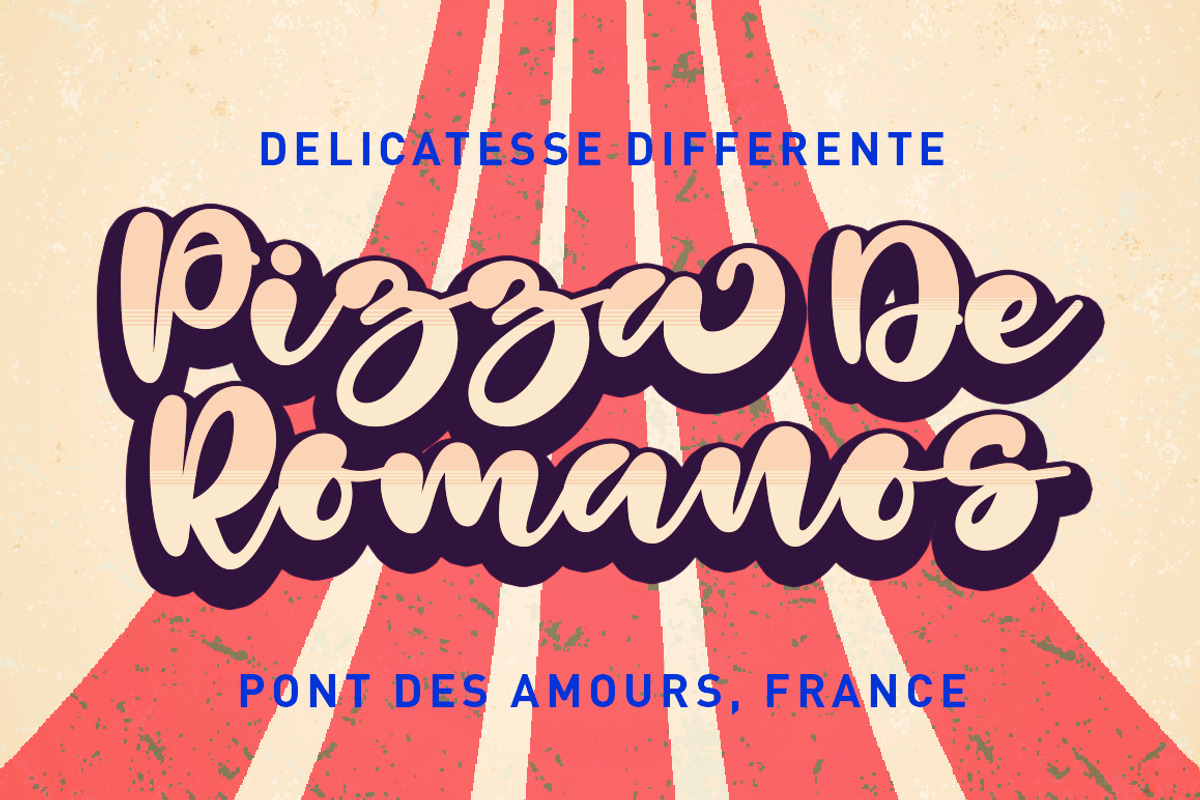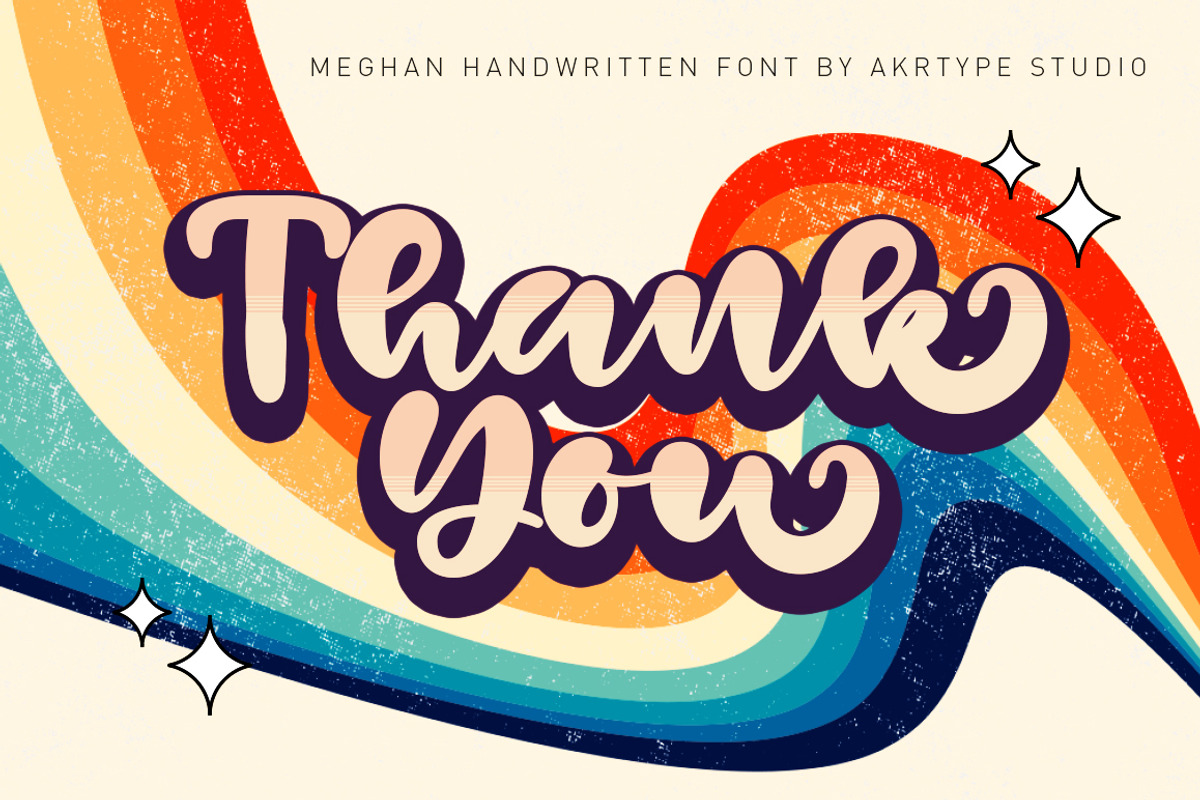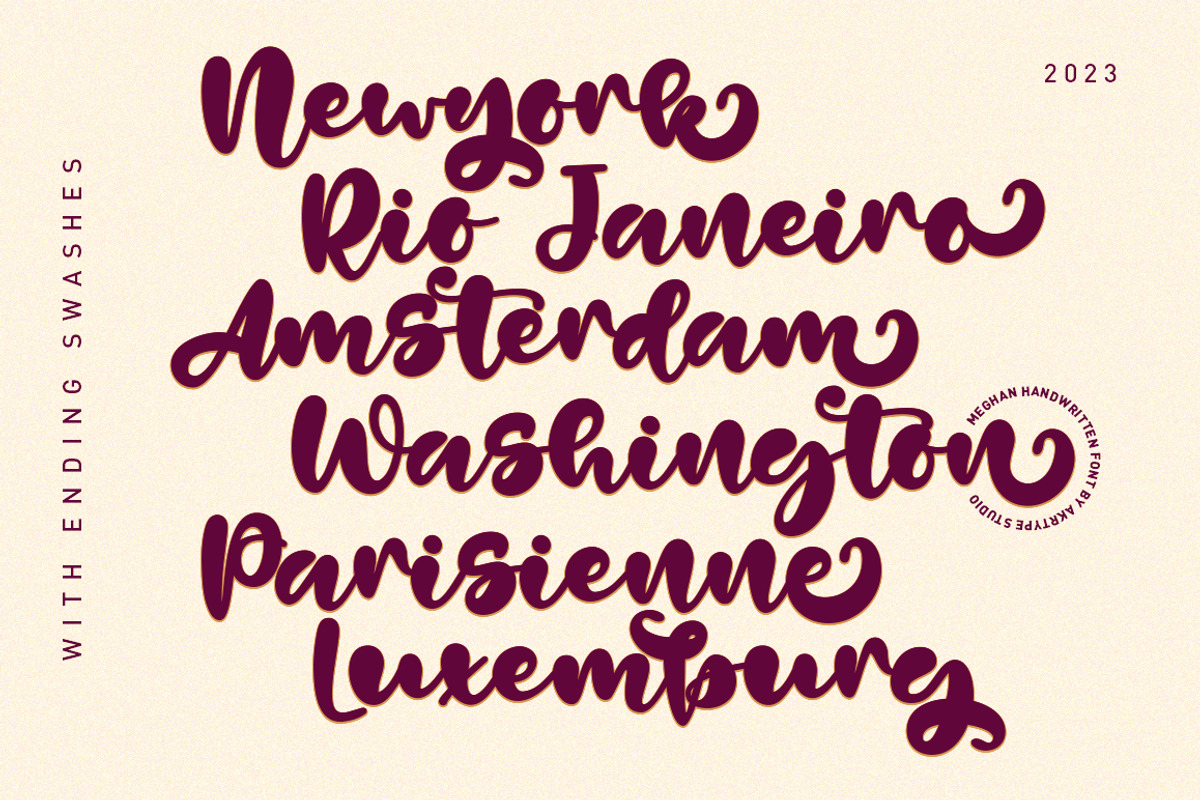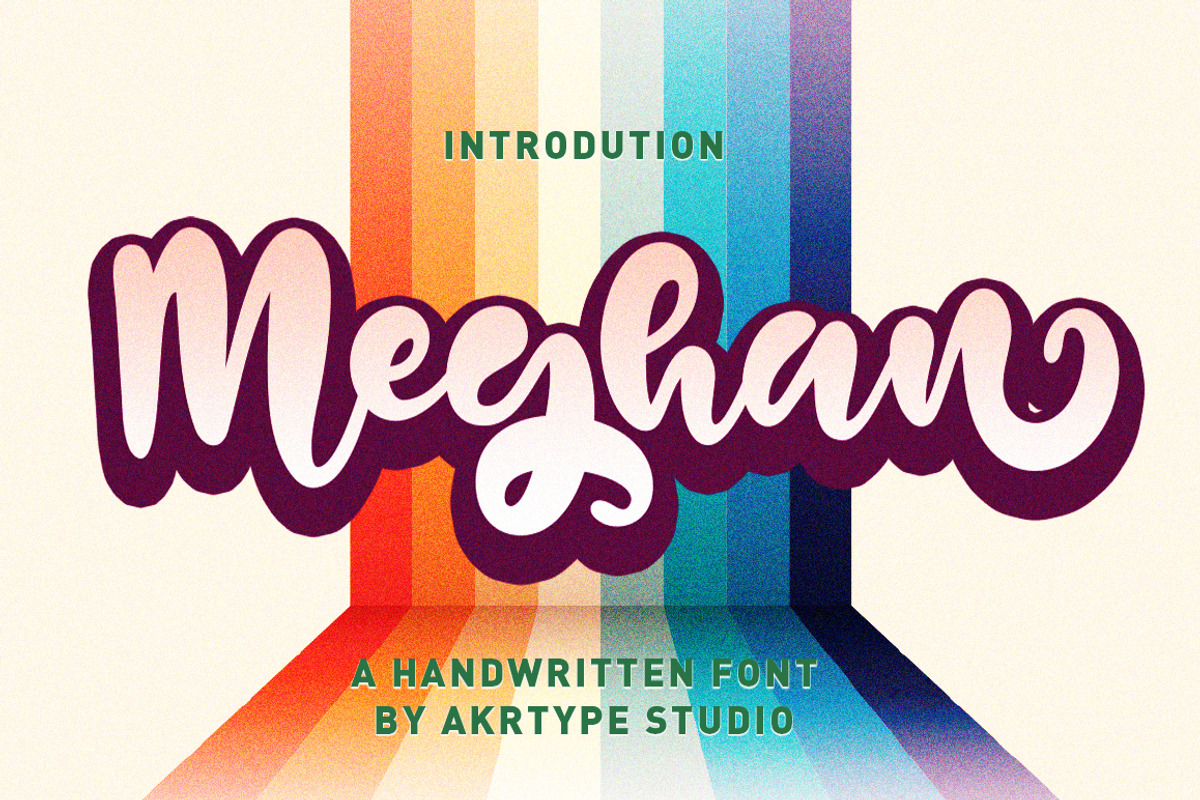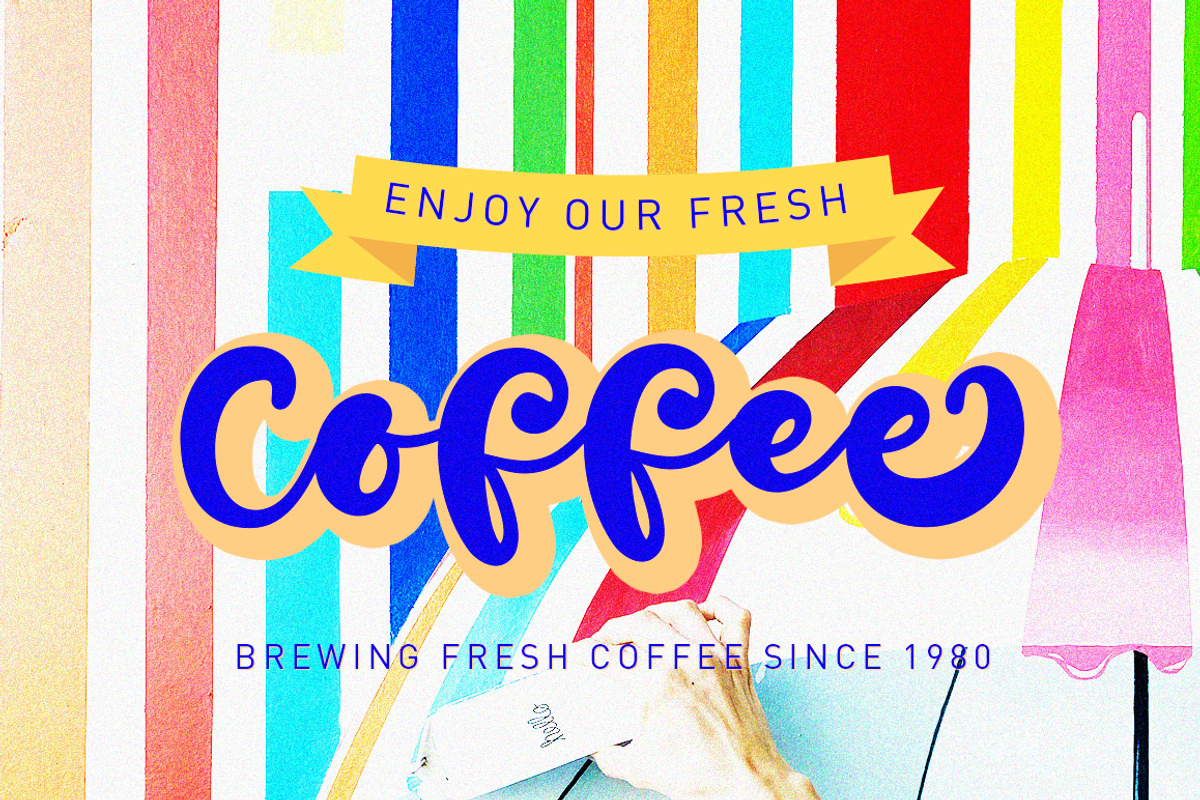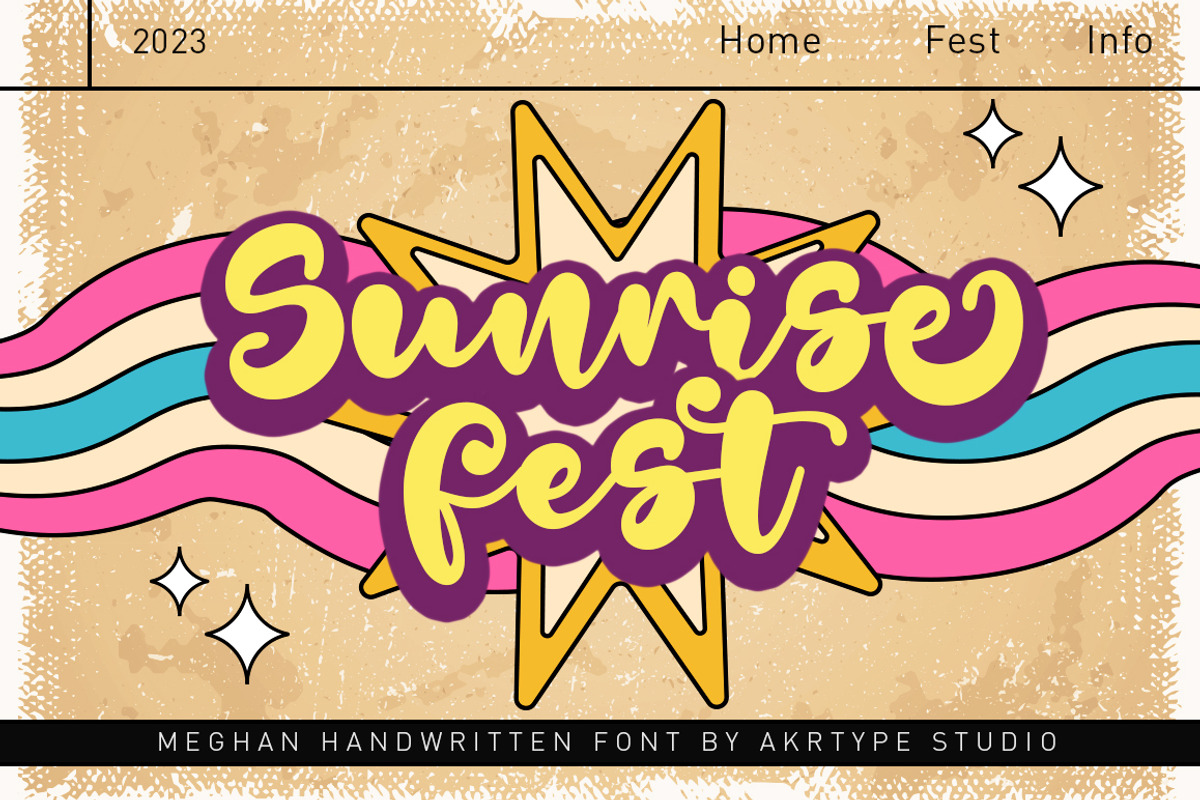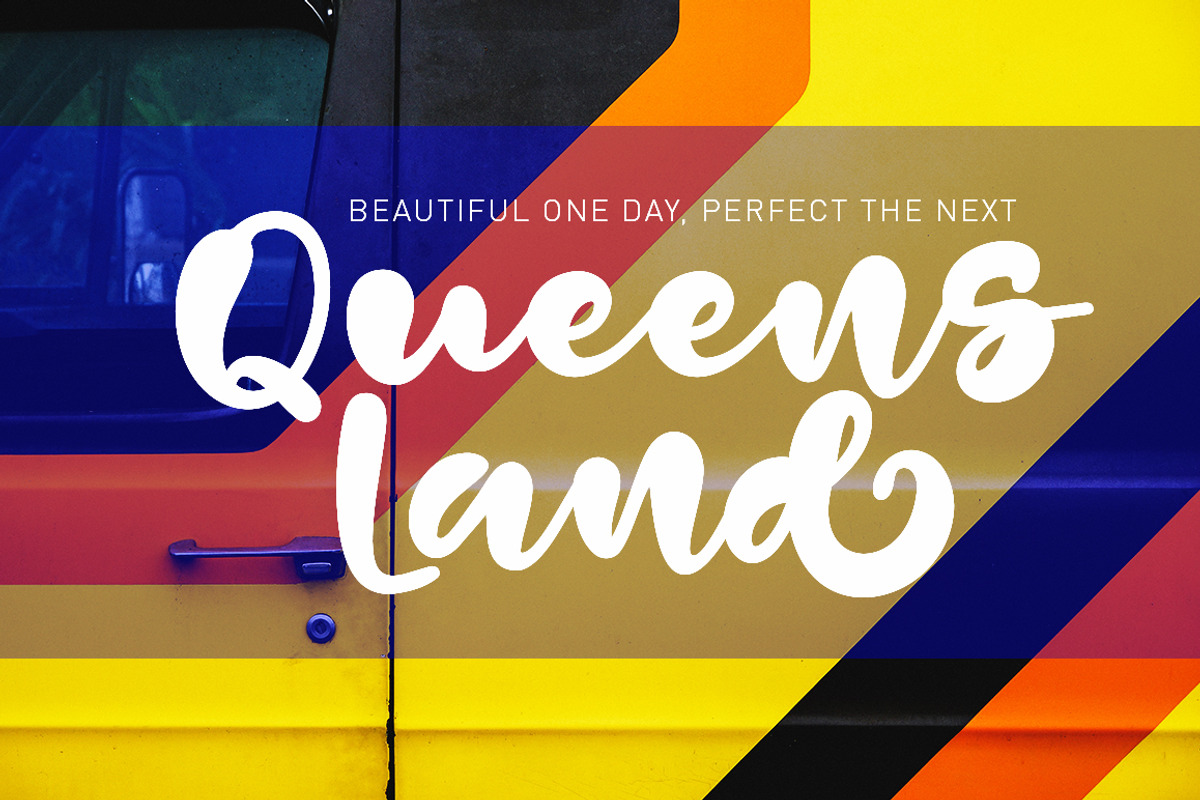
Meghan Smooth Handwritten Font
Meghan Smooth Handwritten Font is a casual and elegant handwritten font. Meghan Smooth Handwritten Font will look outstanding in any context, whether it’s being used on busy backgrounds or as a standalone headline!